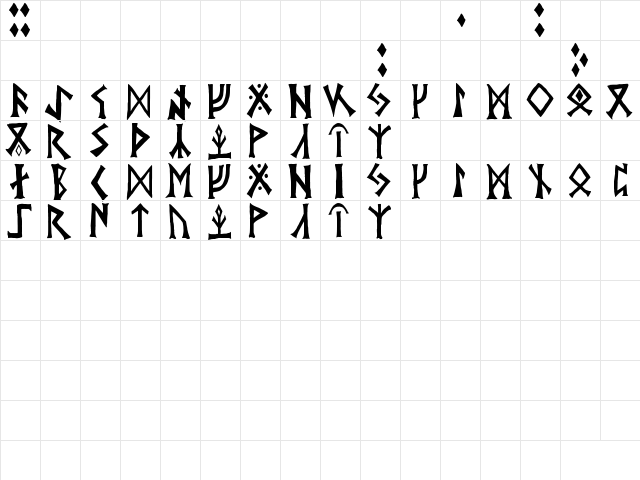
NeoFuthark Regular
Design Context for NeoFuthark Typeface
NeoFuthark is a composed and adaptable typeface that performs quietly and consistently across a wide range of design contexts.